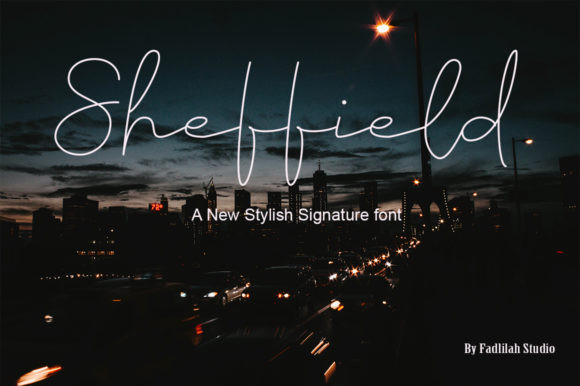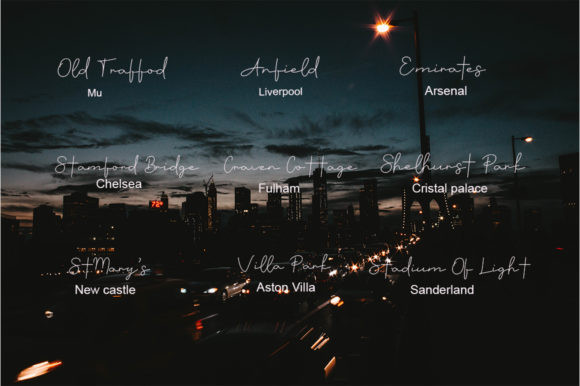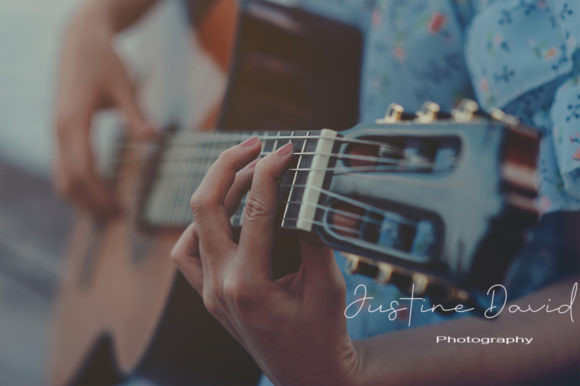
Sheffield Font
Sheffield is a delicate and flowing handwritten font. Fall in love with its incredibly versatile style and use it to create gorgeous wedding invitations, beautiful stationary art, eye-catching social media posts, and much more!